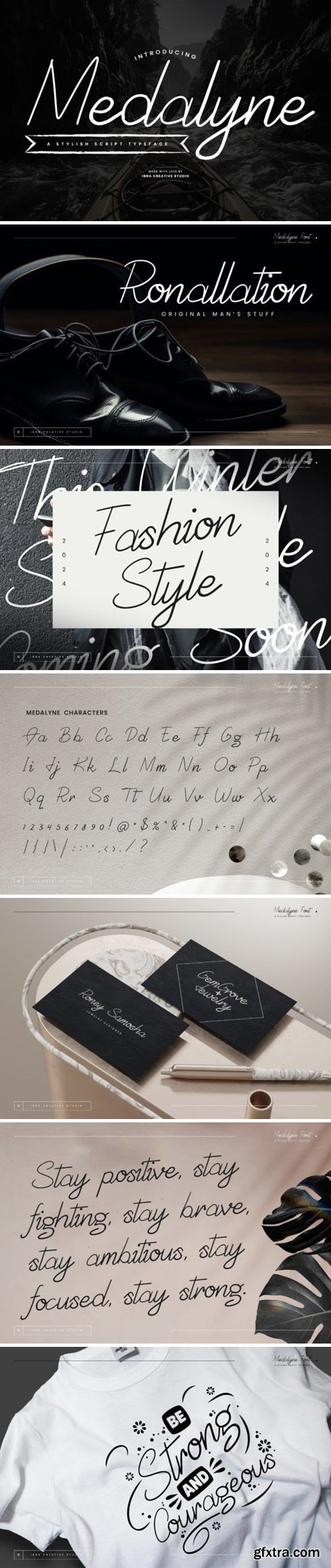
梅达林字体
Medalyne, a stylish script typeface, effortlessly marries elegance with modernity, creating a captivating visual symphony that is both timeless and contemporary. The graceful curves and fluid strokes of Medalyne’s letterforms exude a sense of sophistication, making it an ideal choice for projects that demand a touch of refined aesthetics. Medalyne’s versatility shines through as it lends an air of sophistication to invitations, branding, and editorial designs, establishing itself as a go-to choice for those seeking a typeface that seamlessly merges style and substance.